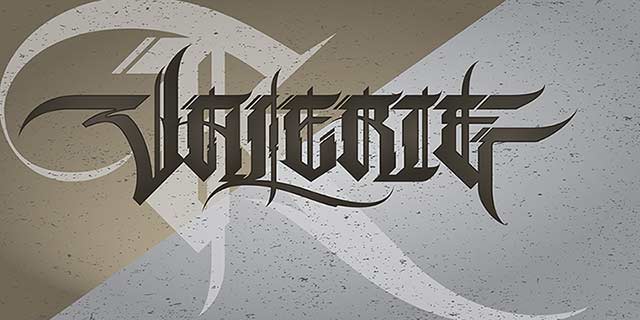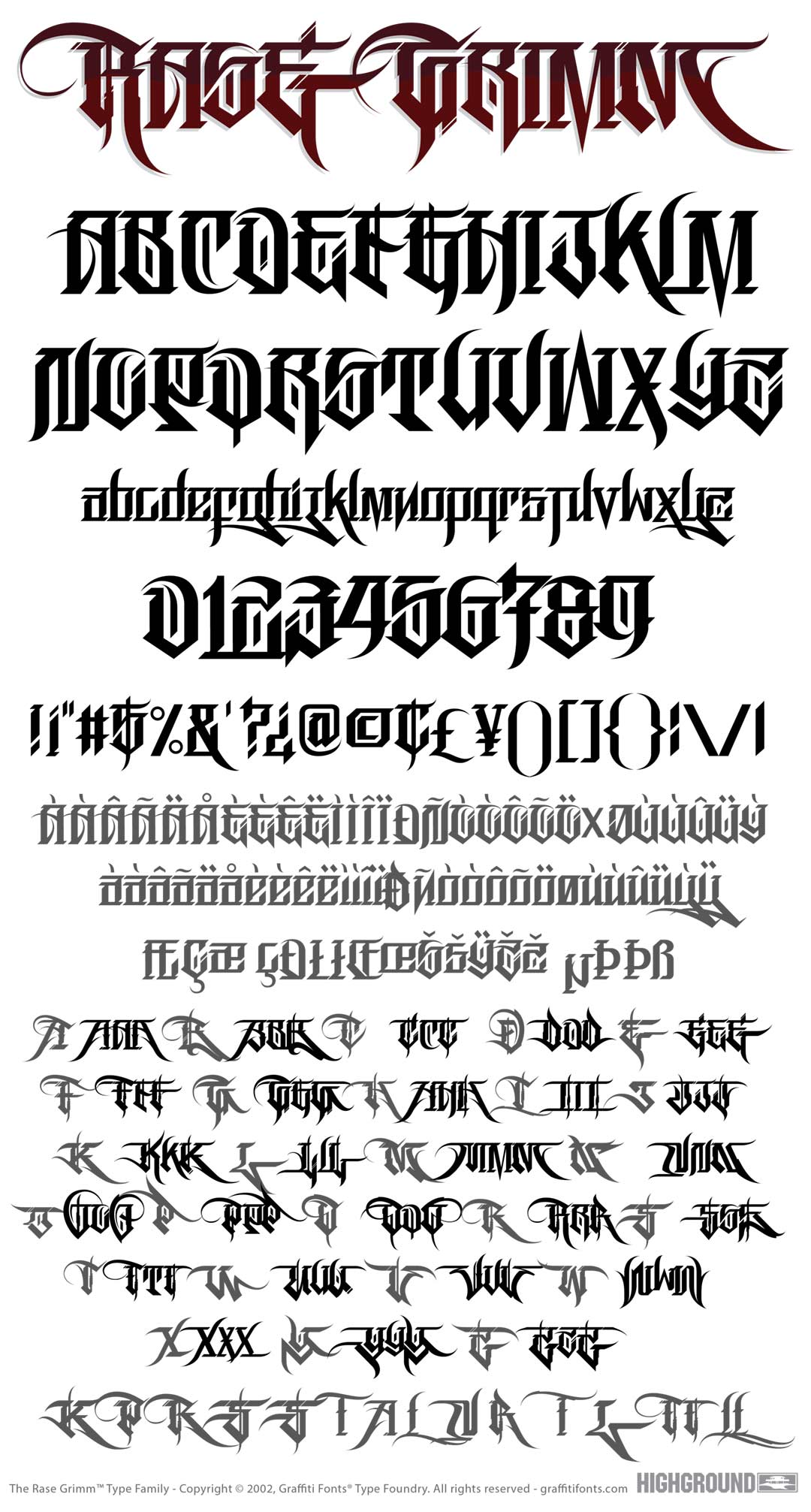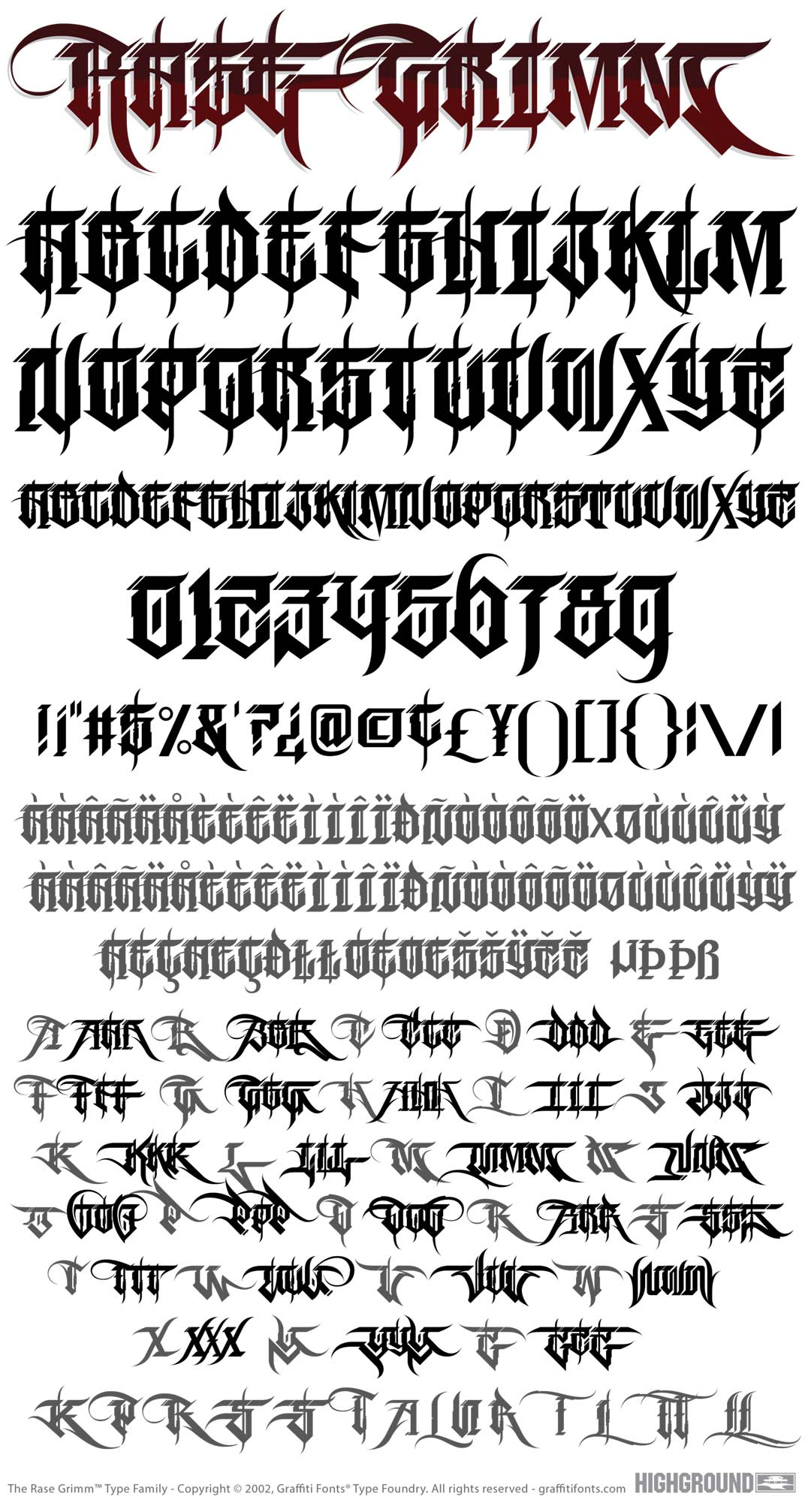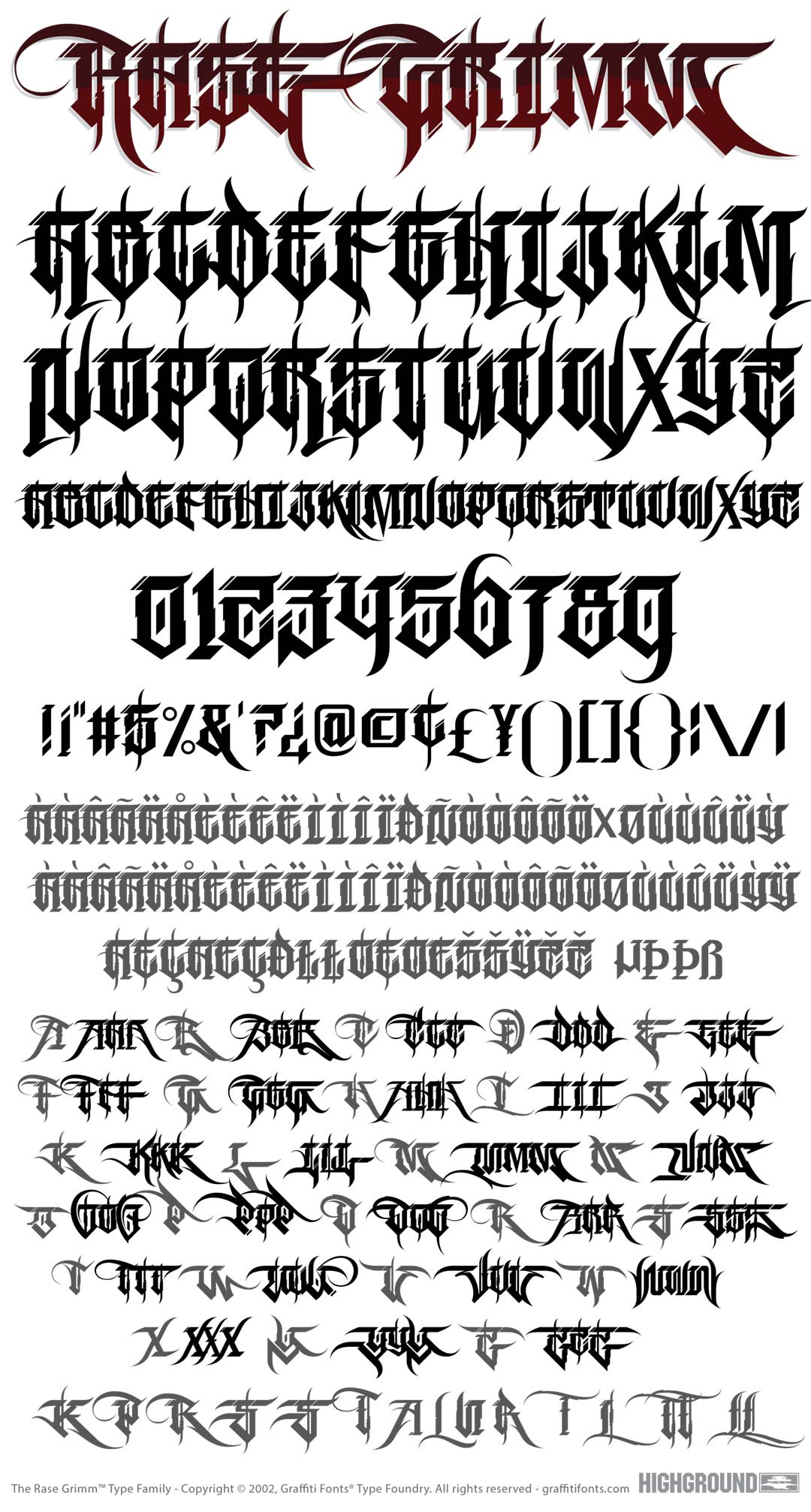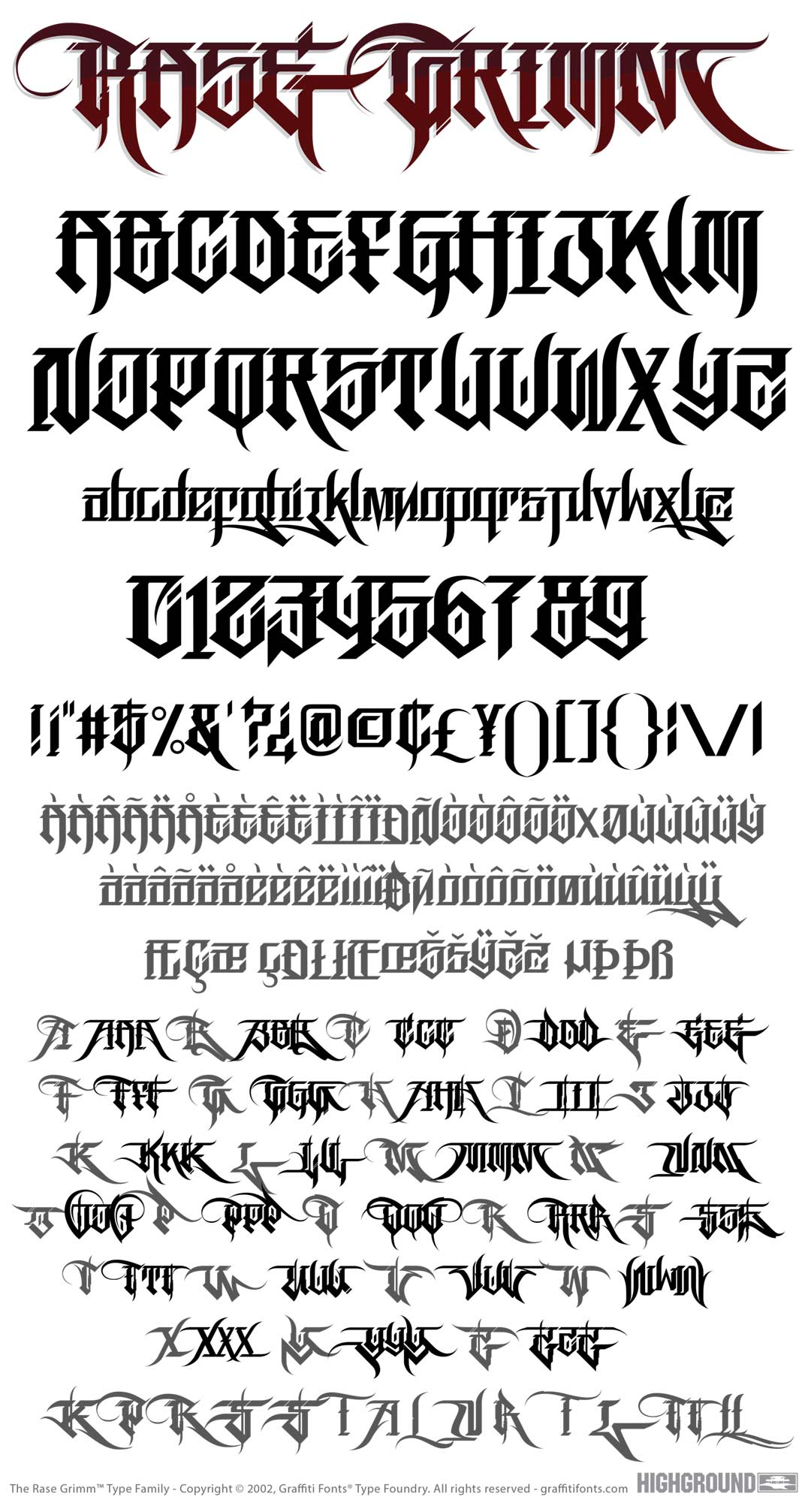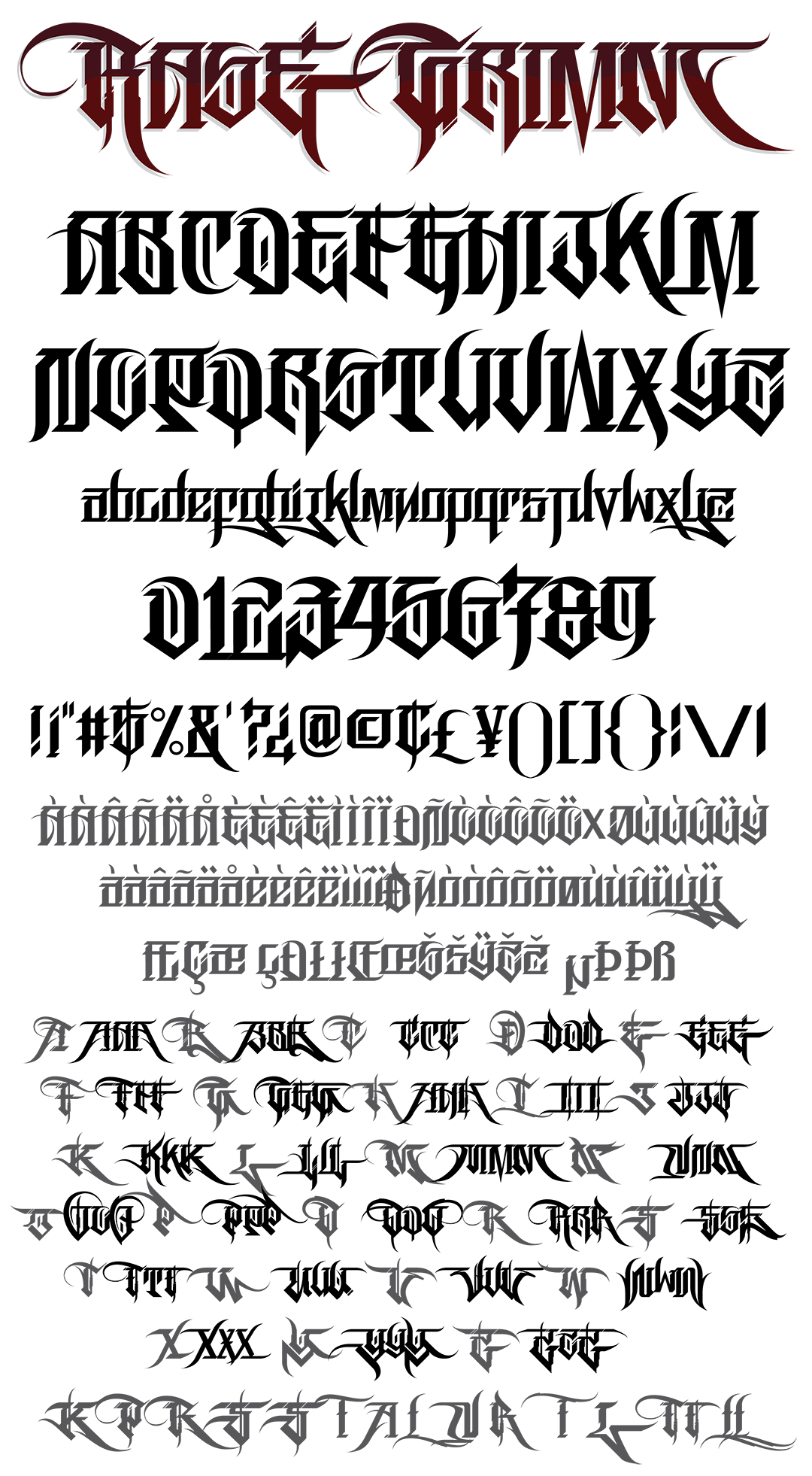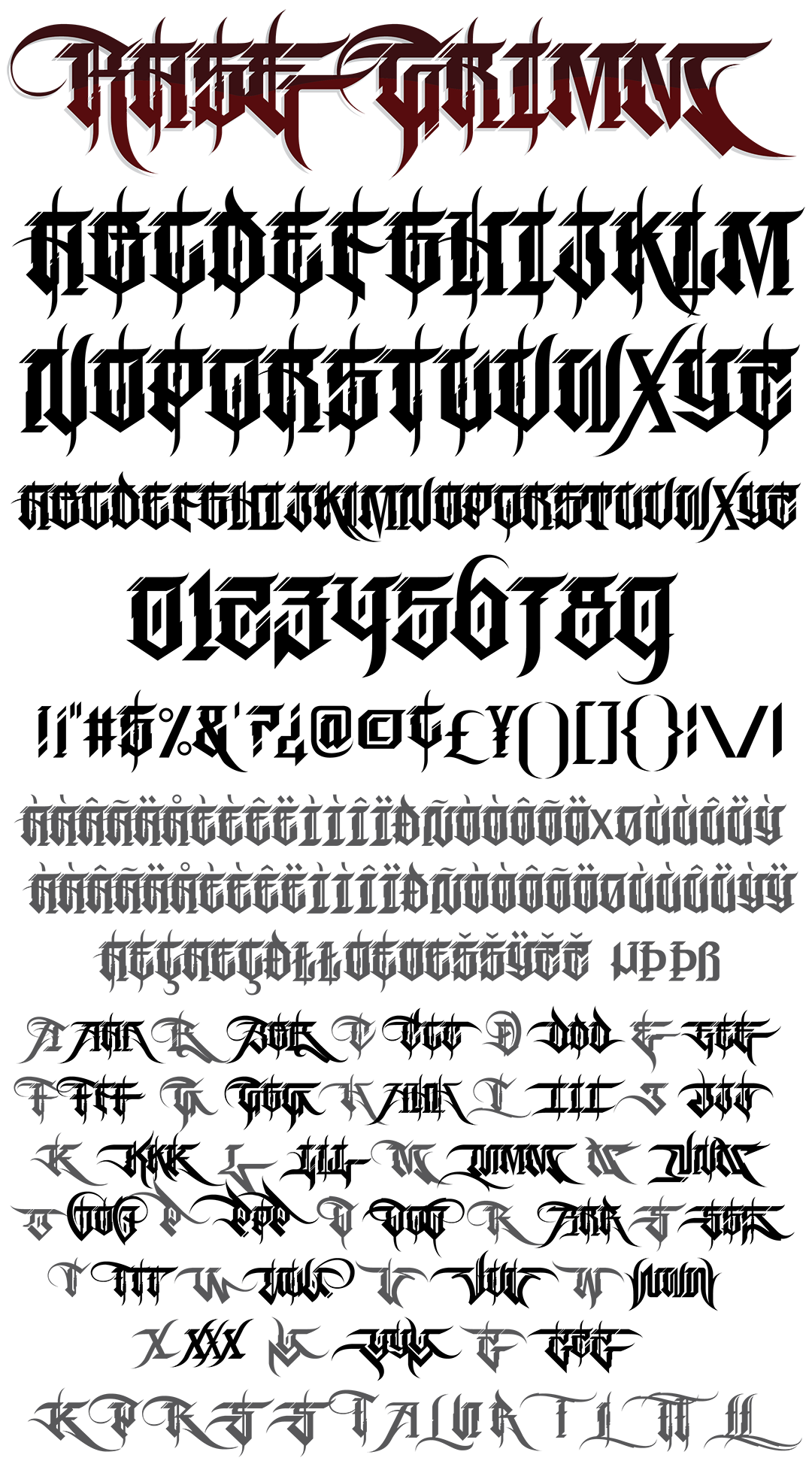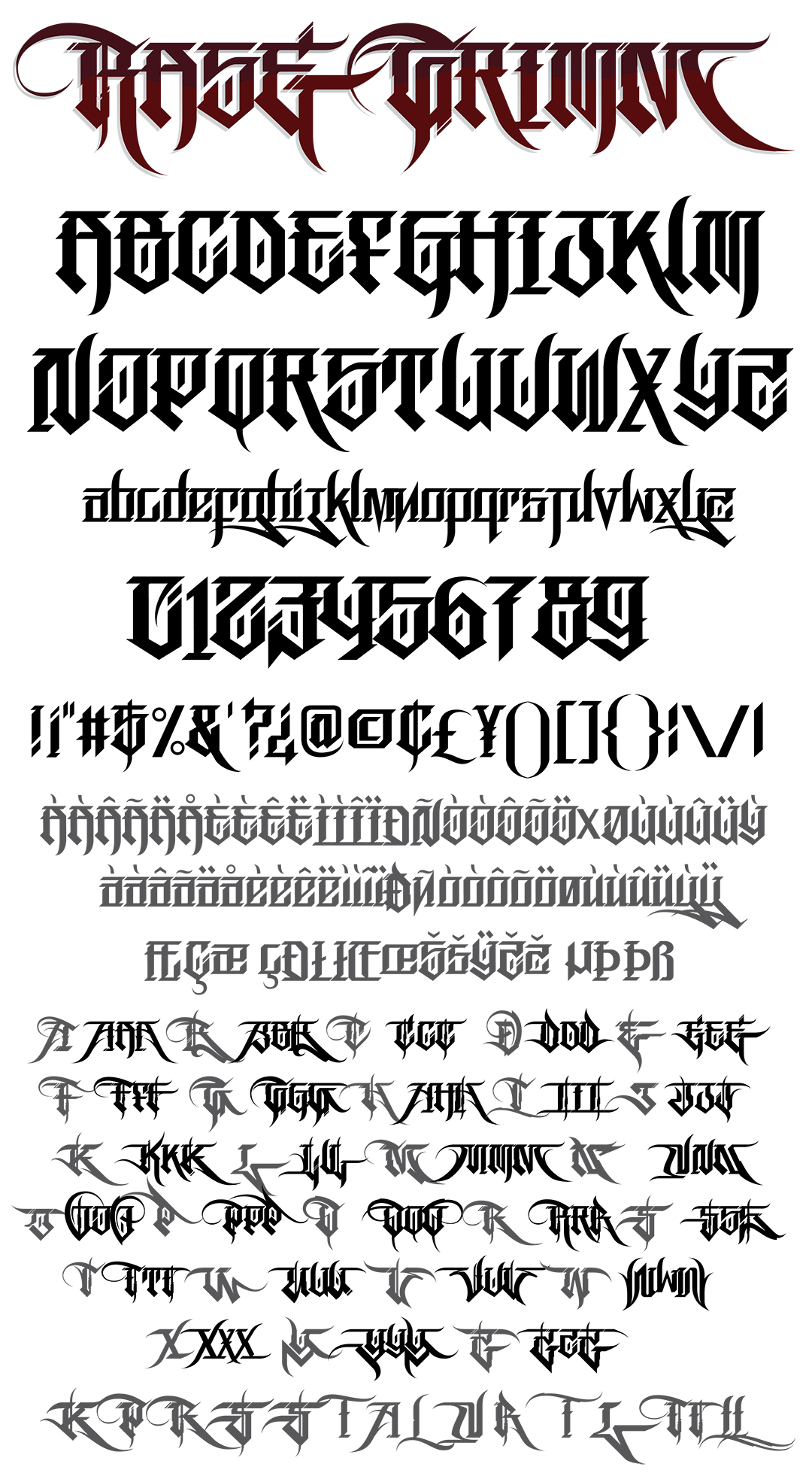
The Grimm family is a blackletter inspired graffiti style built for headline and display. The family includes 4 variants: Grimm Regular and Grimm Curves both utilize traditional capital and lowercase letters while the Grimm Fat and Grimm Variable fonts are all-caps styles. All 4 styles include complete sets of initial, terminal and isolated letter variations as contextual alternates. These alternates allow the beginning and end of any word or phrase to be automatically embellished with specialized characters. Grimm also includes a number of stylistic alternates, standard and discretionary ligatures and other embellishments as well as latin supplement characters for multilingual support and a full array of punctuation and symbols. The Grimm Variable style provides adjustable accentuation of ascenders, descenders & flourishes providing more control and variety.